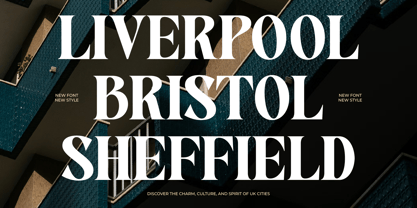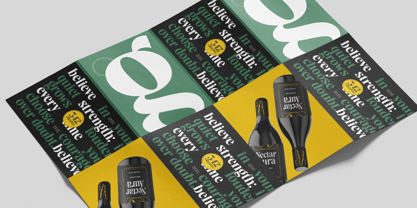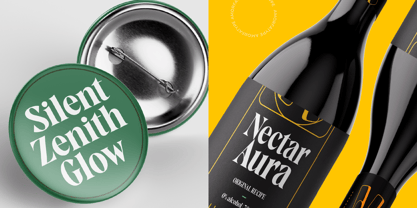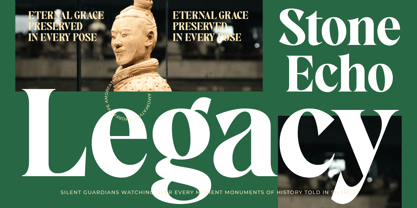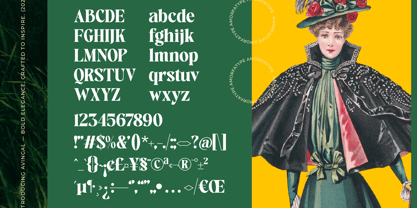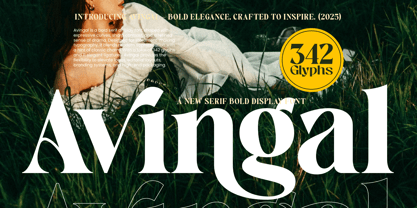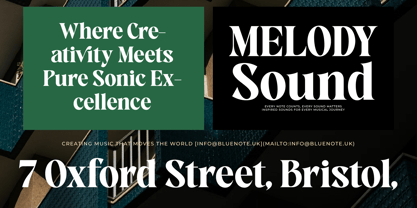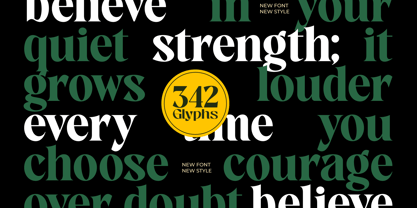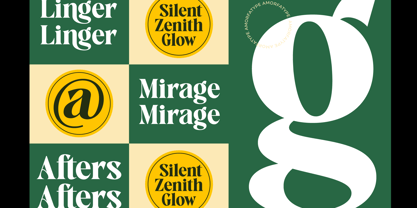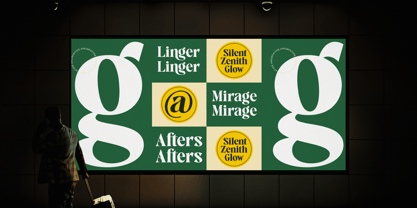
Avingal
by Amorfa Type
The Avingal Font Family was designed by Shiddiq Roihan and published by Amorfa Type. Avingal contains 2 styles and family package options.
Avingal is a striking serif bold display typeface designed to deliver power, clarity, and refined visual impact. With its solid structure, sharp transitions, and sculpted serif details, Avingal brings a confident, modern presence to any layout. This typeface merges classic serif traditions with bold contemporary styling, making it ideal for designers who want a strong, memorable typographic statement. Perfect for branding, editorial headlines, product packaging, fashion graphics, posters, and bold title compositions, Avingal offers a clean yet commanding aesthetic. Each glyph is shaped with purposeful weight and precision, ensuring both readability and artistic character across print and digital use.